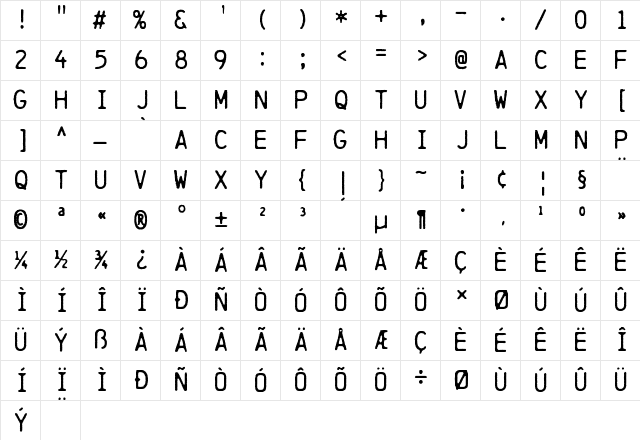
Chainprinter Regular
Design Context for Chainprinter
Chainprinter is a composed and adaptable typeface that performs quietly and consistently across a wide range of design contexts.
Pro Tip: Use Chainprinter in both headline and body roles to test its range before committing to a single application.